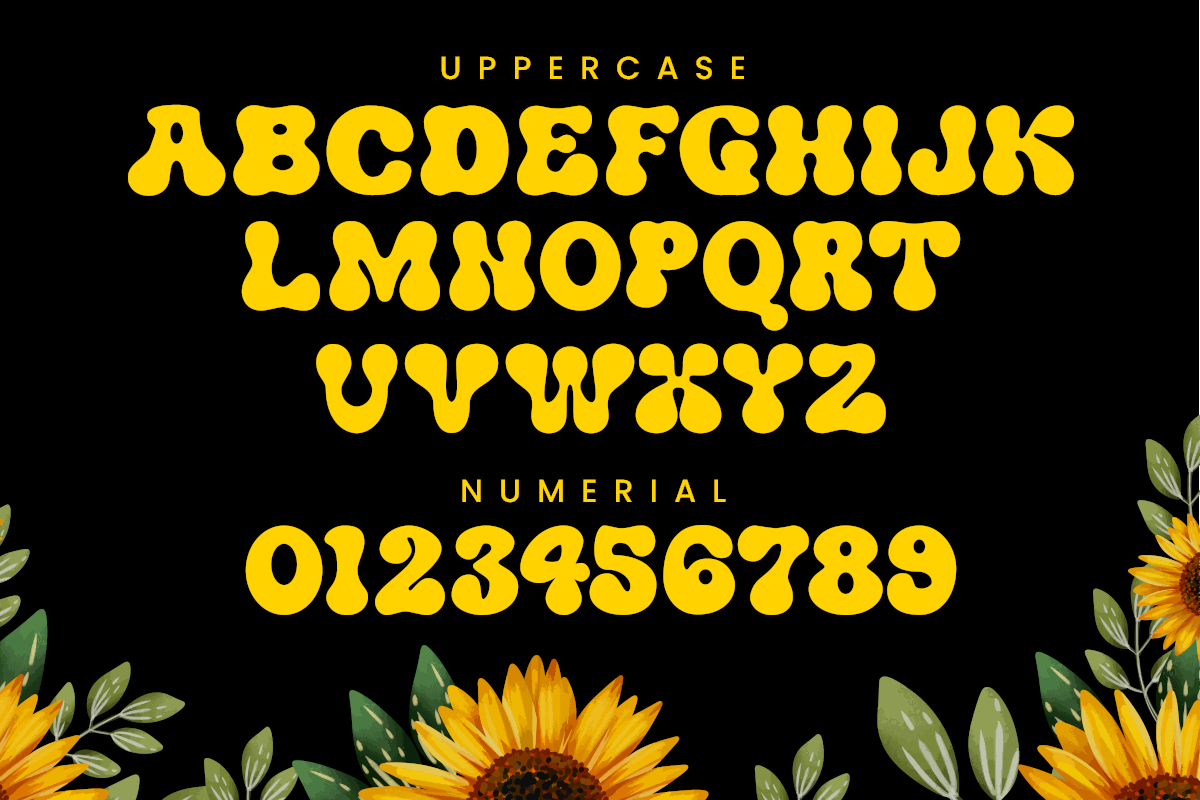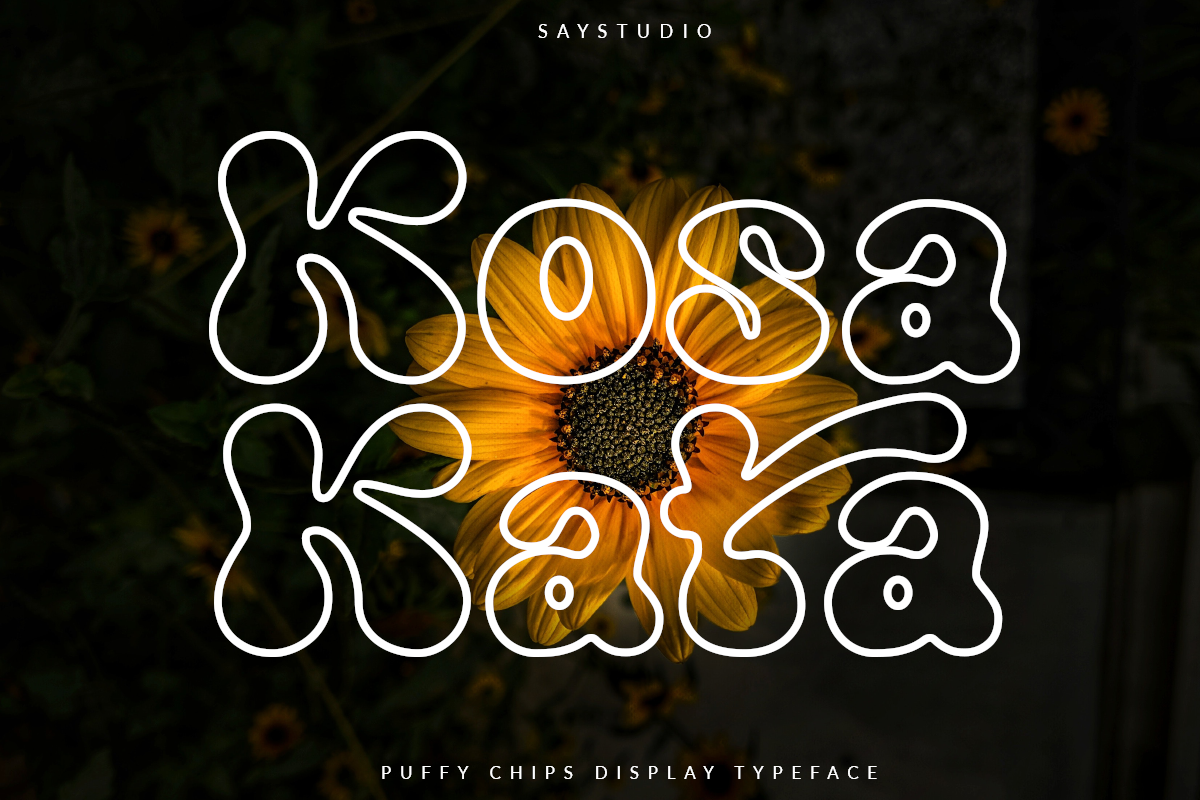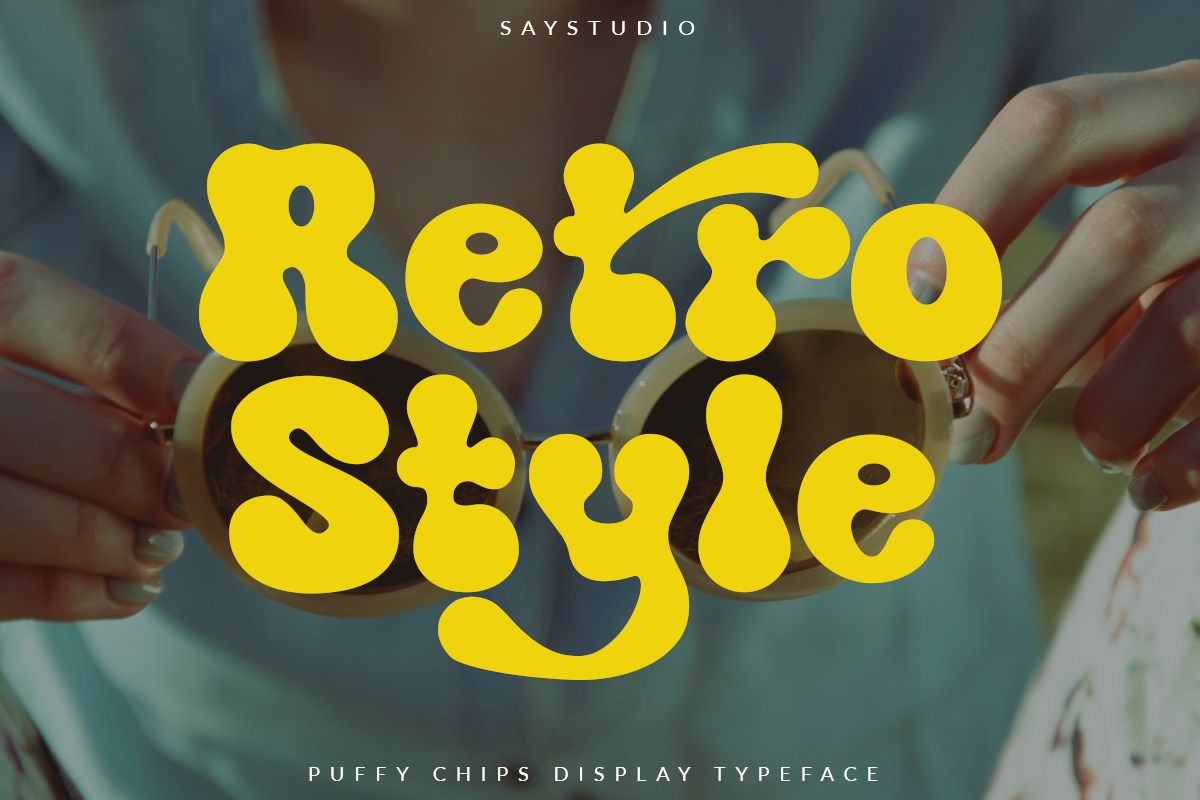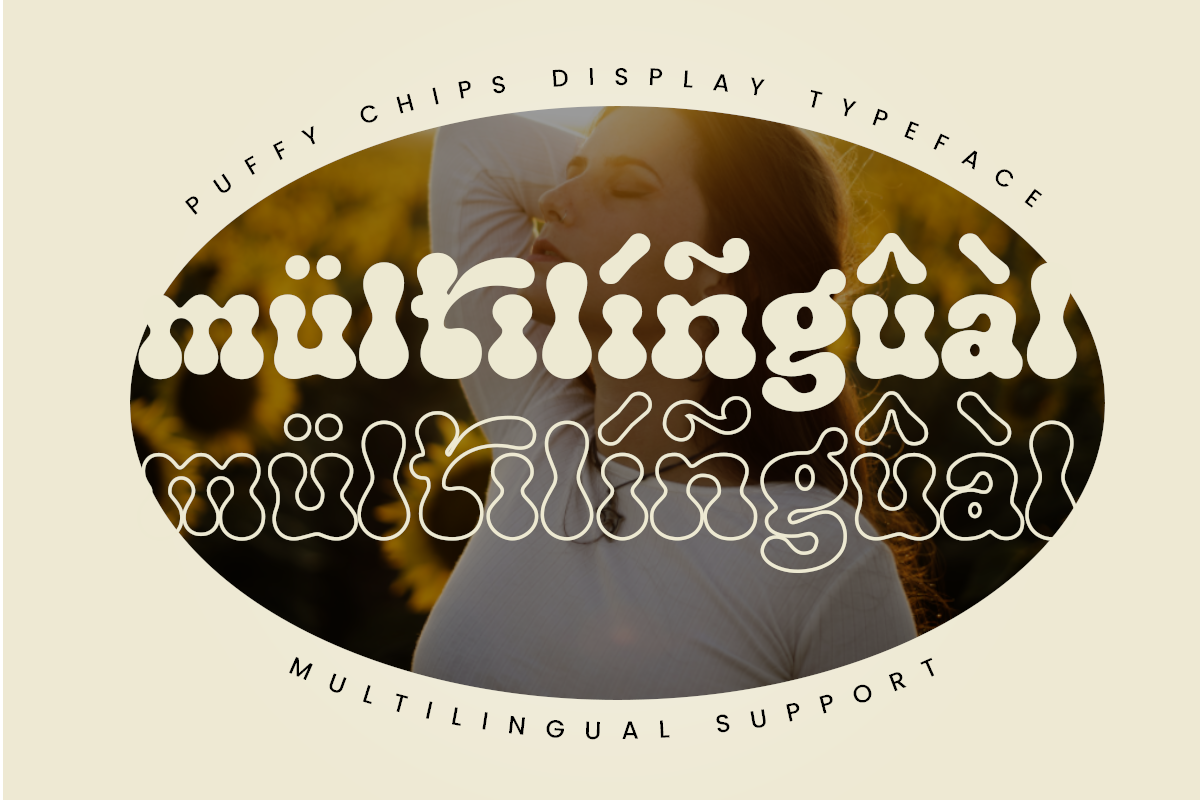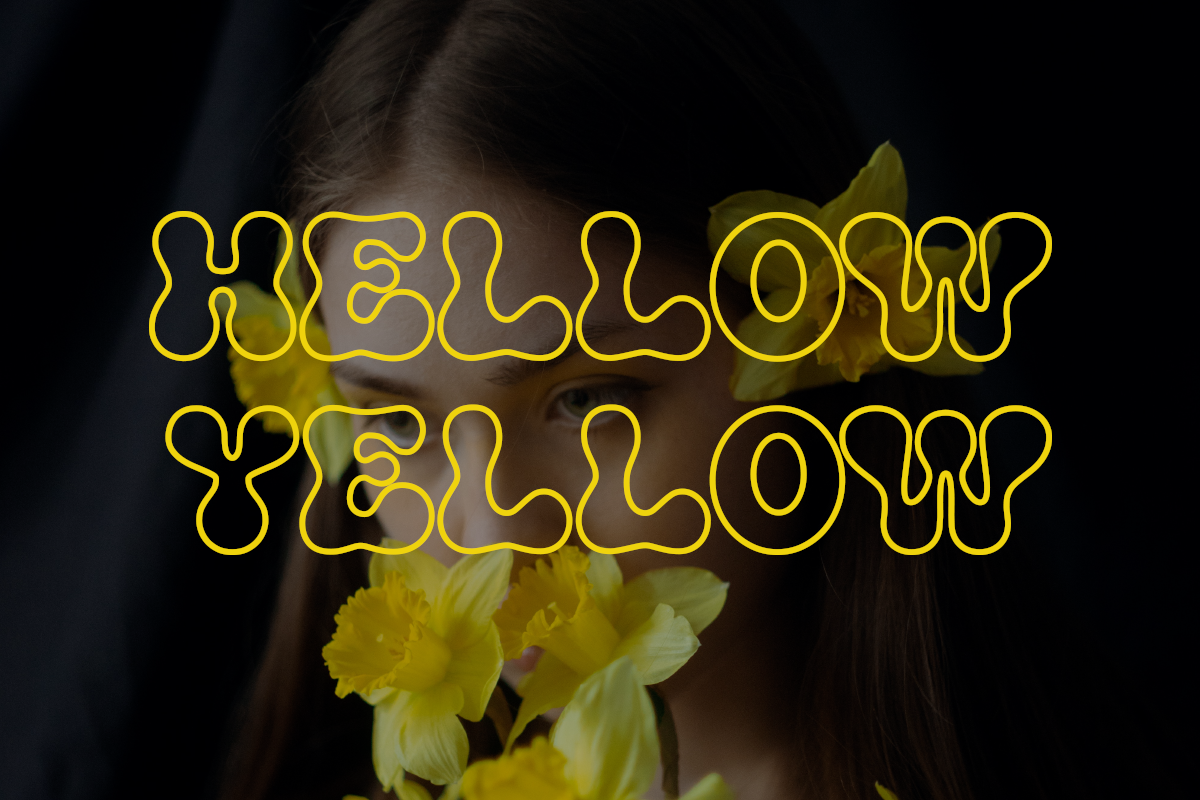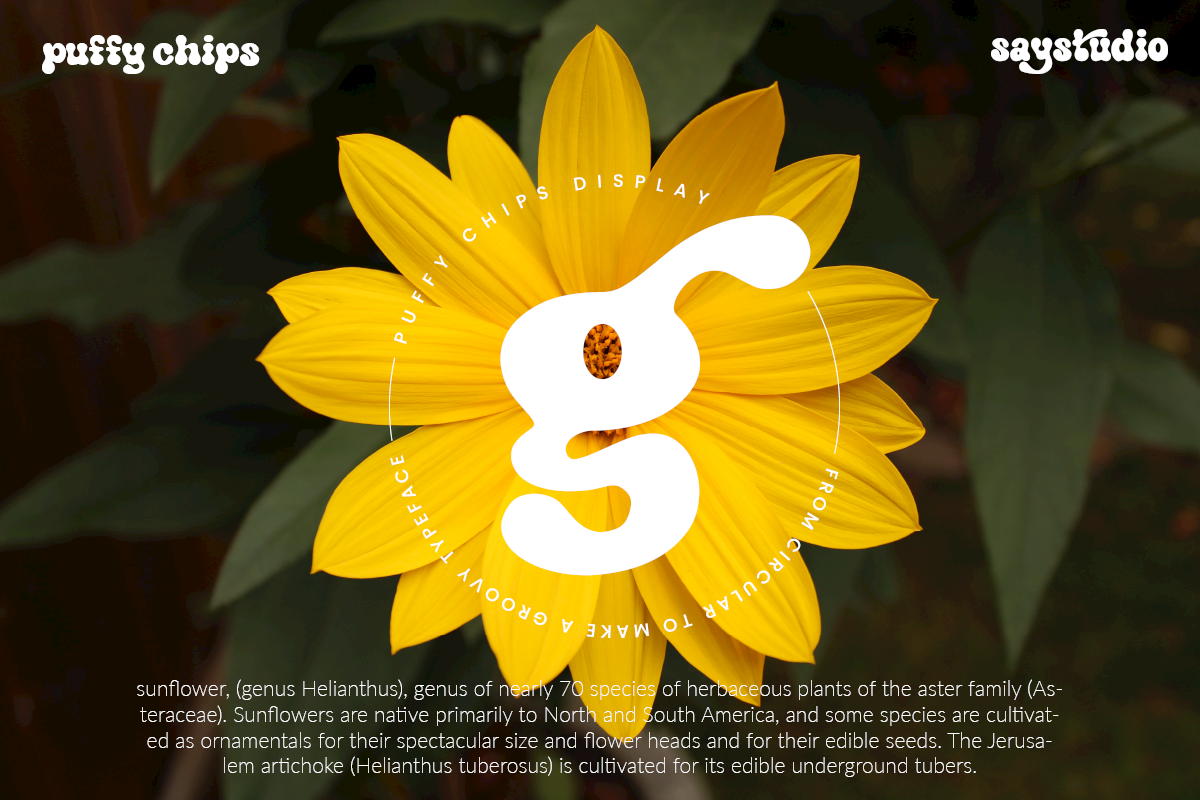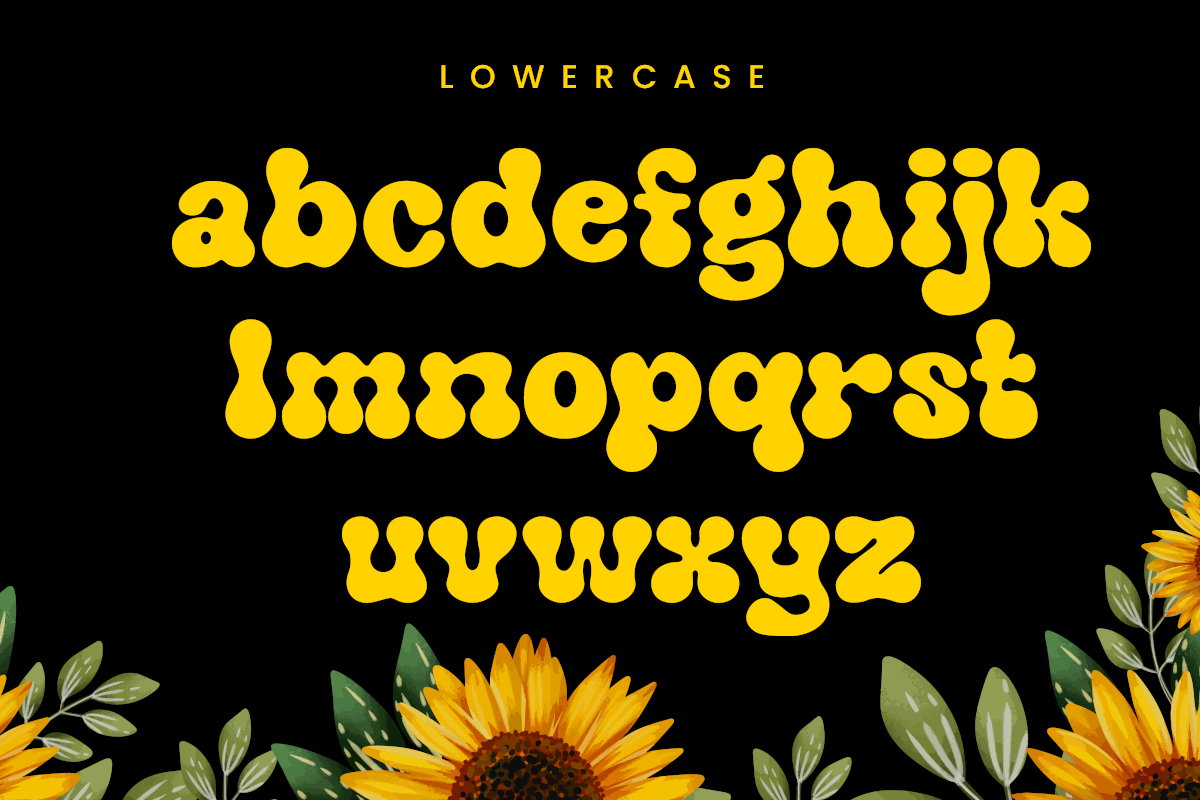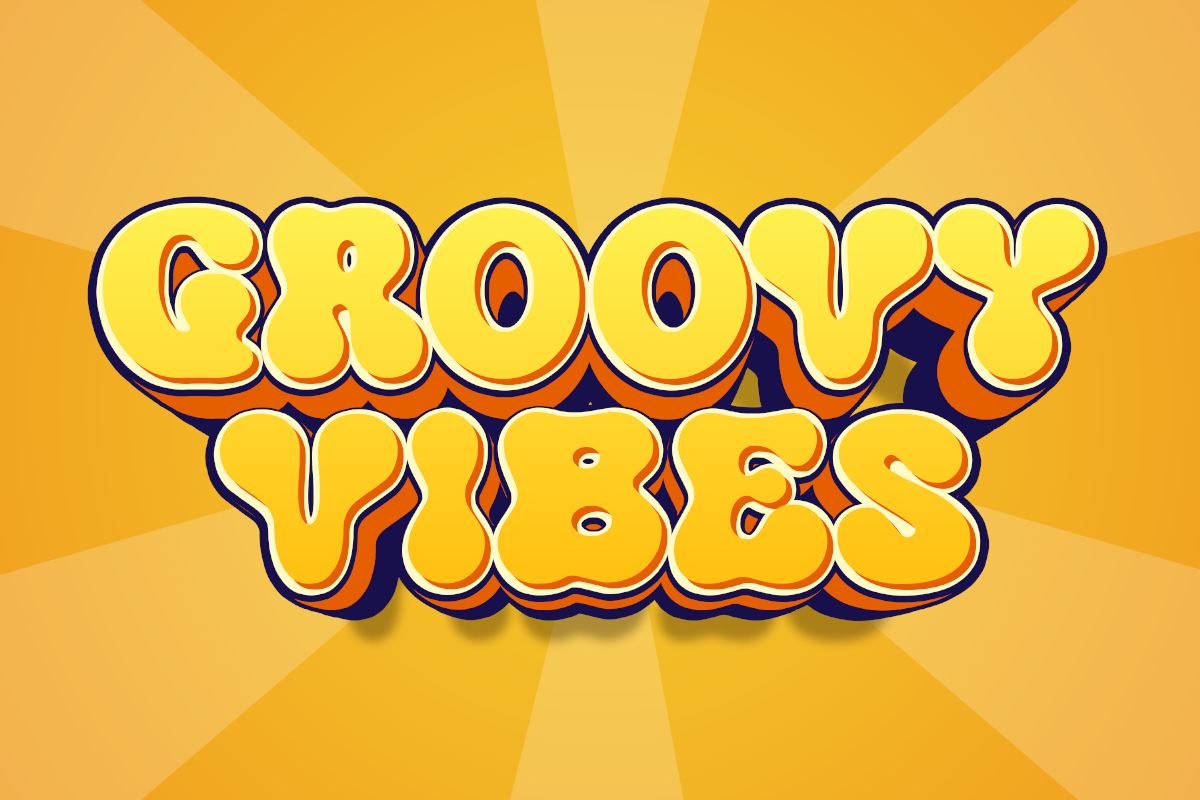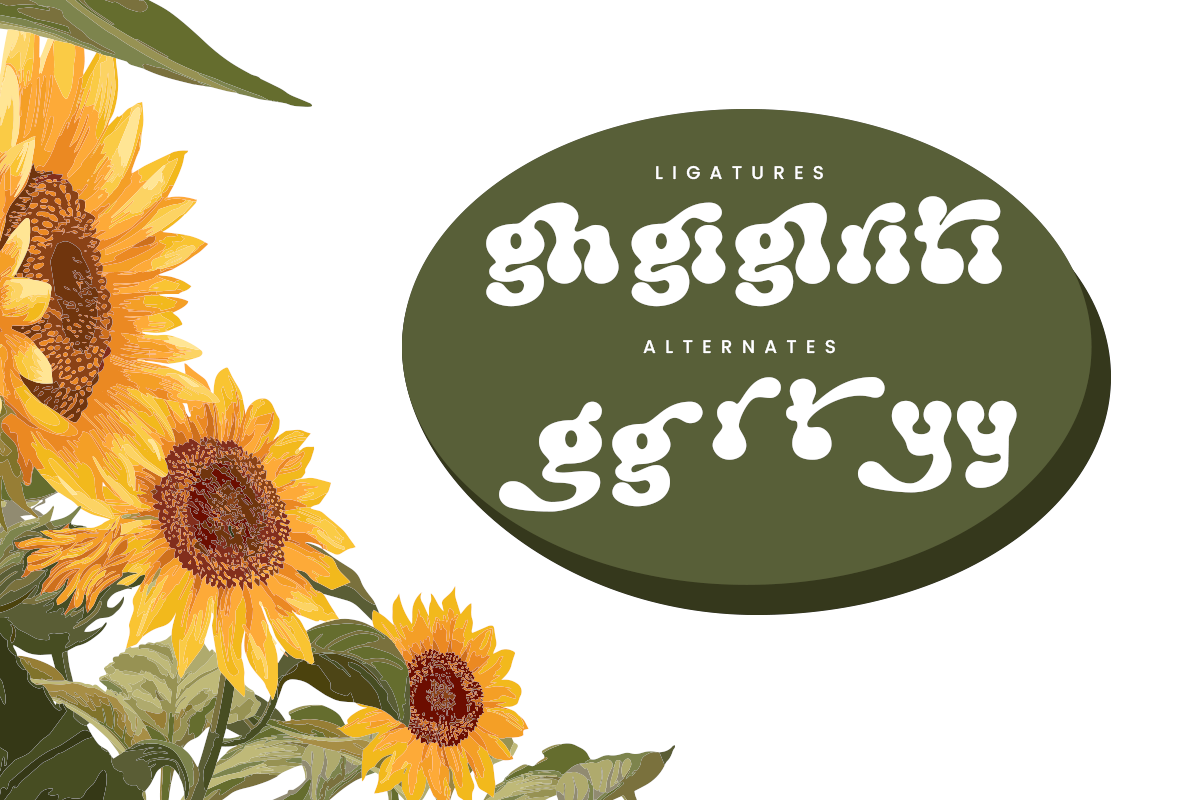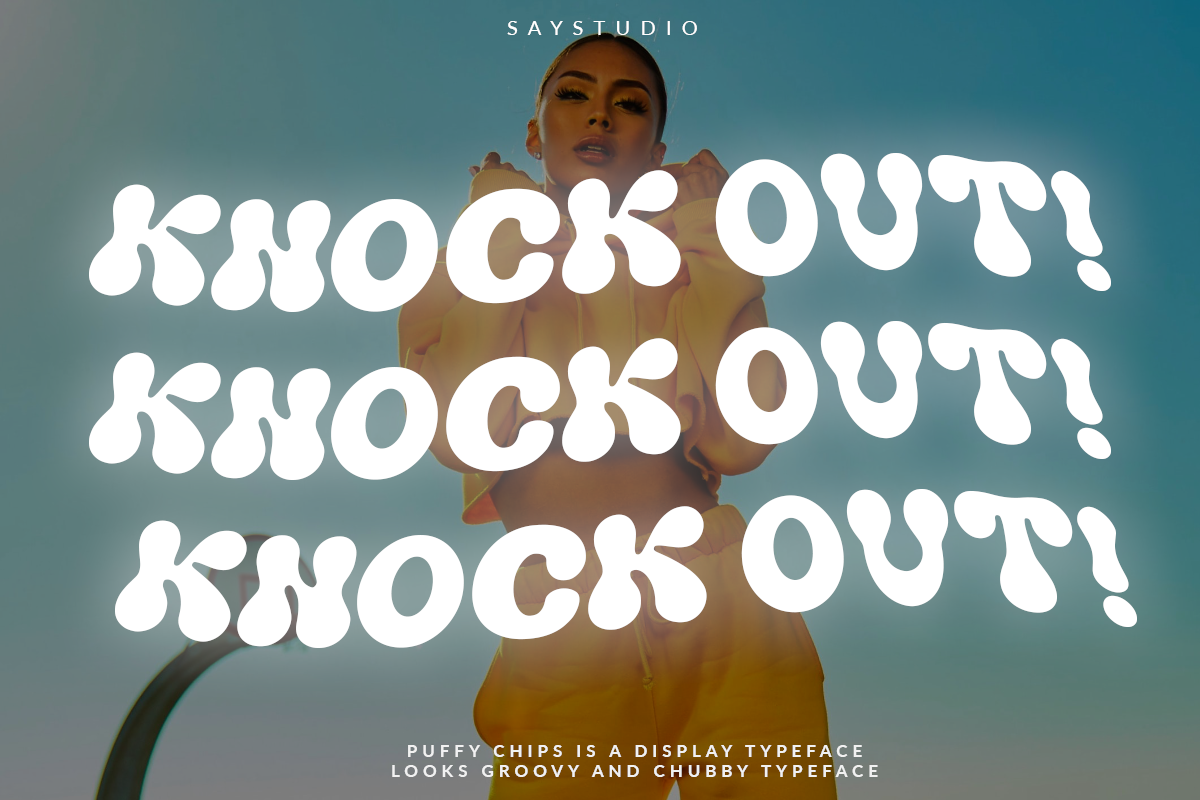
puffy chips retro typeface
puffy chips - it's groovy,retro, bold, chubby, and playful, chubby typeface of circle in groovy style. Perfect for make any project like header, quote, layout magazine and other. Even better if you use it on 60s and 70s design project
Embracing the psychedelia era combine with groovy style, open type features such as stylistic alternates and multilingual support
- Unique letterforms